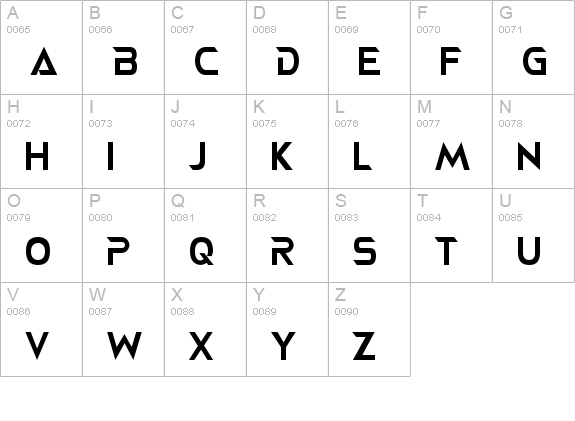
NEOTERIQUE font is a modern and stylish typeface that embodies innovation and sophistication. With its sleek lines and contemporary design, this font is perfect for adding a touch of elegance to any project. NEOTERIQUE is a versatile font that can be used for a wide range of applications, from logos and branding to headlines and posters. Its clean and minimalist aesthetics make it ideal for creating a professional and polished look. One of the greatest advantages of NEOTERIQUE font is that it is freely available to download at FontsMarket.com. This means that designers and creatives can easily access this stunning font without any cost, making it an attractive option for those on a budget or looking for high-quality design resources. Whether you are a graphic designer, a web developer, or simply an individual looking to enhance your creative projects, NEOTERIQUE font offers endless possibilities. Its smooth curves and eye-catching letterforms will captivate viewers and leave a lasting impression. Embrace the future of design with NEOTERIQUE font and elevate your work to new heights. Download this incredible font for free at FontsMarket.com and unlock a world of design possibilities.